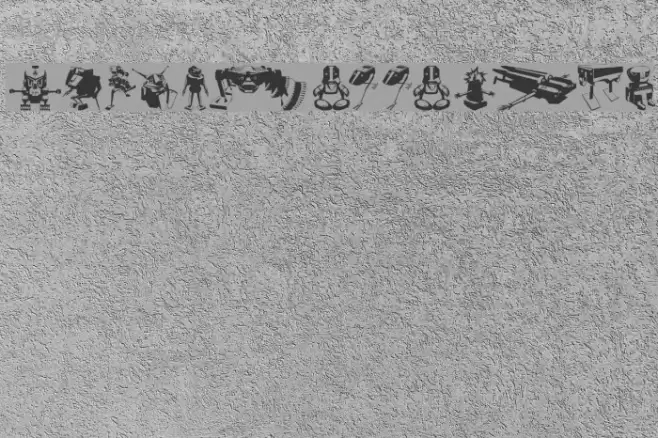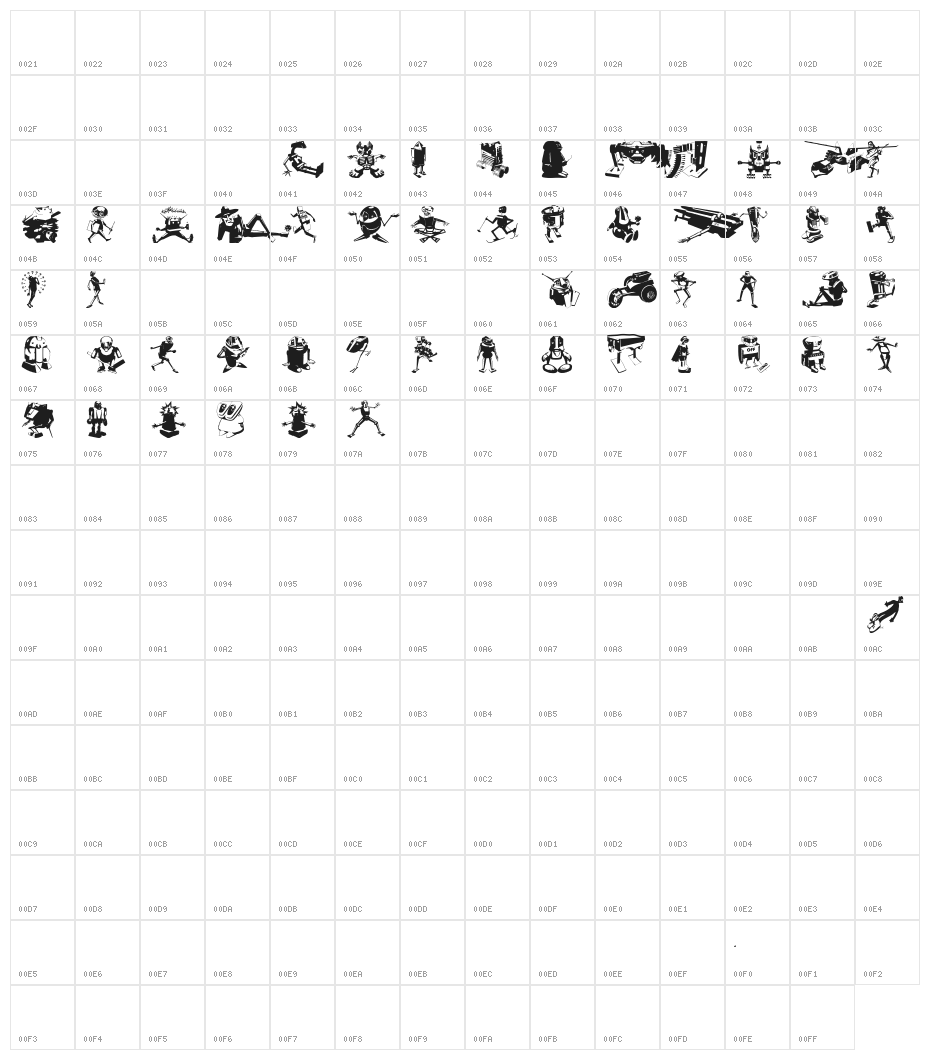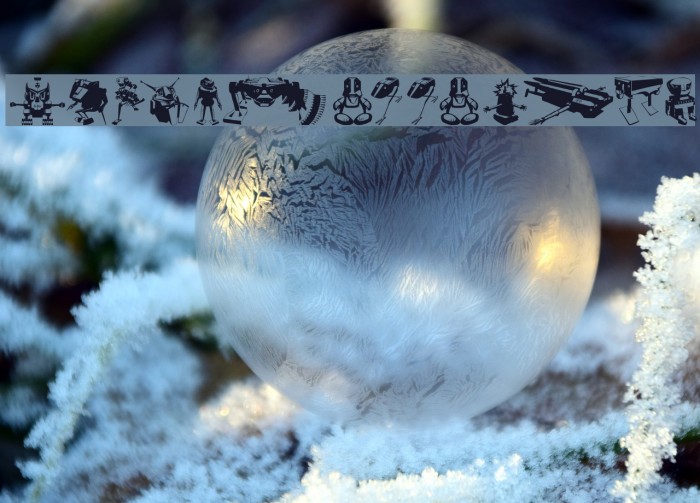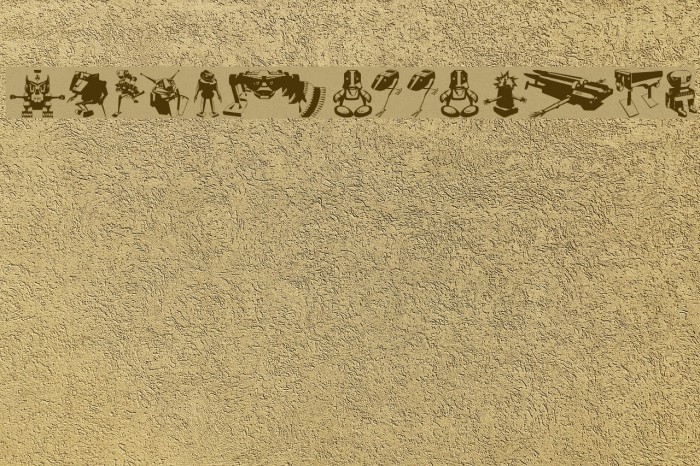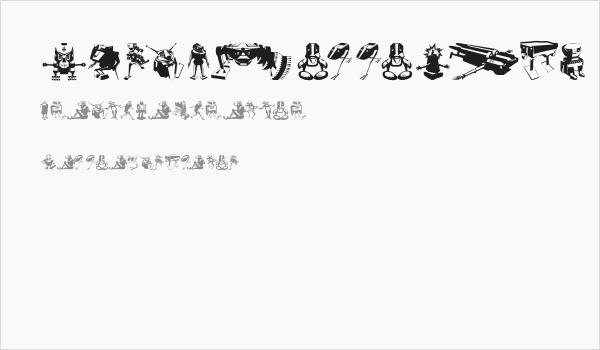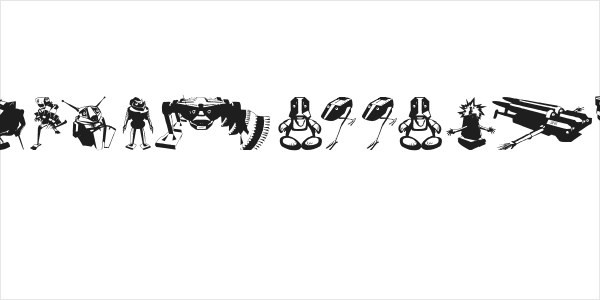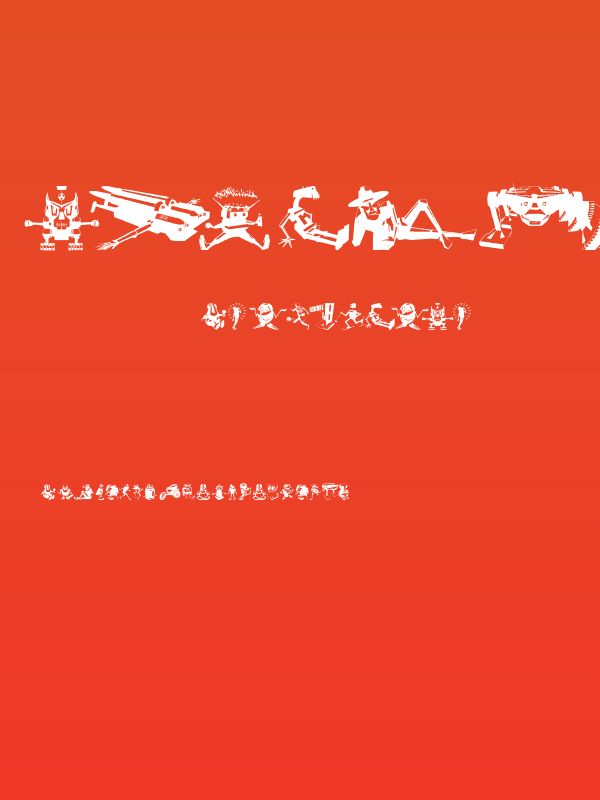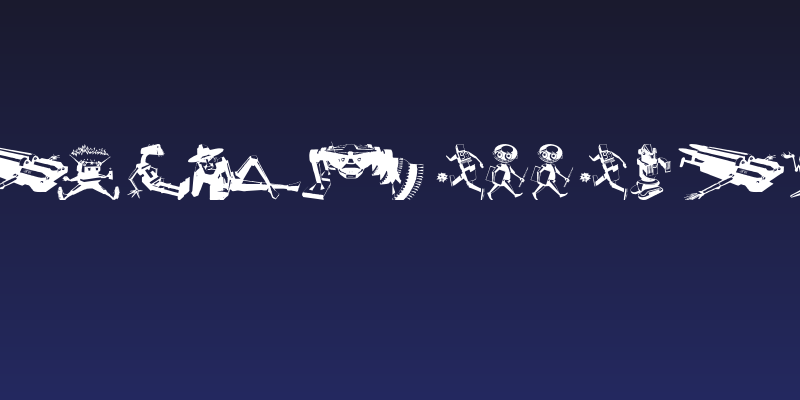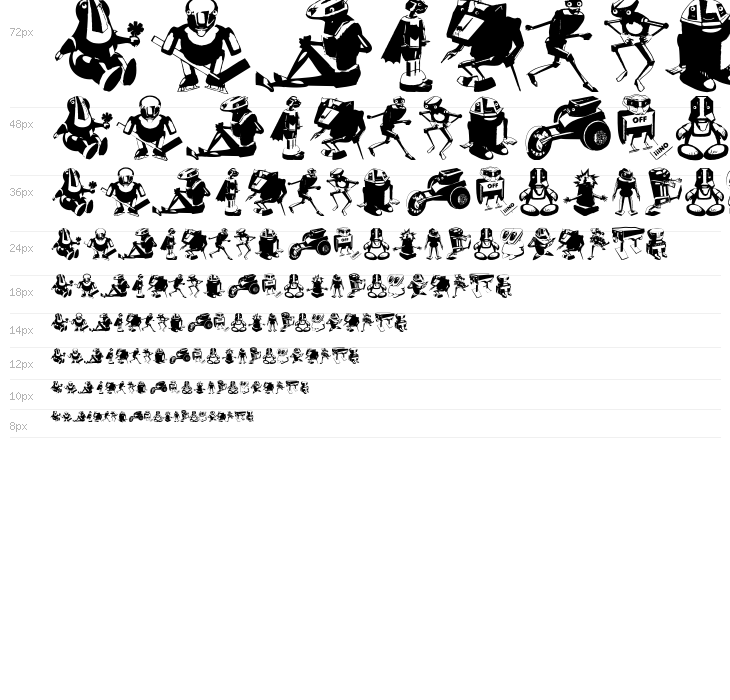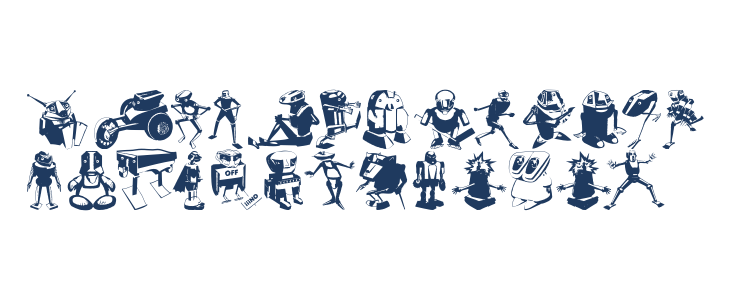
HumanFollowUps Font
HumanFollowUps Description
A highly decorative and playful typeface where each character is represented by a unique robot or mechanical figure, blending cartoonish and futuristic elements with strong black-and-white contrast. The glyphs are abstracted into humanoid or machine-like forms, making each letter and symbol distinct and visually engaging.
A whimsical, robot-themed decorative display font with high contrast and unique character illustrations from Uncategorized fonts.
- Overall Style: Decorative, Futuristic, Playful
- Use Case: Headlines, Posters, Logos, Themed Graphics